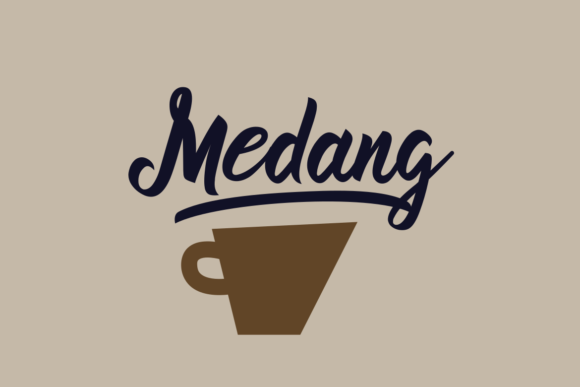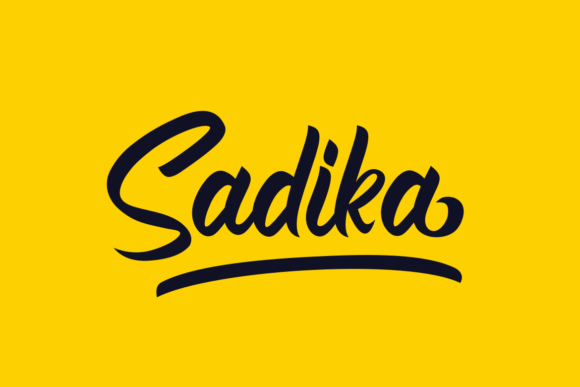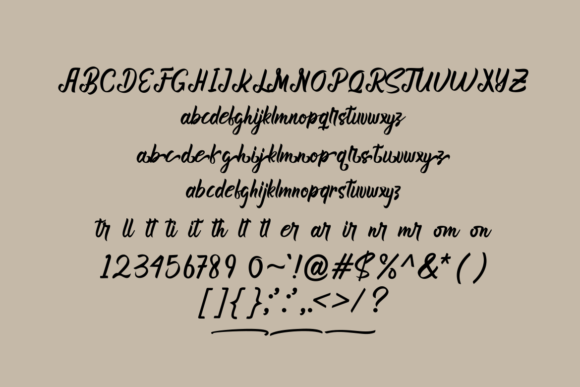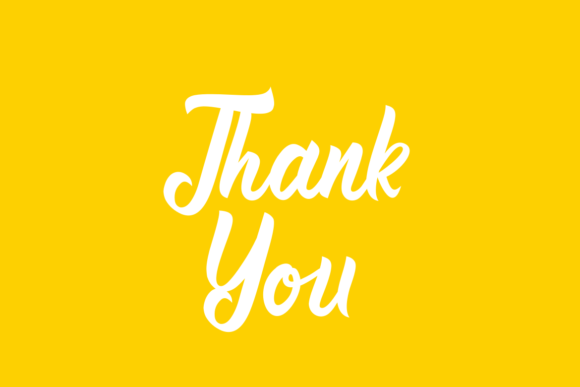
Bhanira Font: Elevate Your Designs with a Touch of Retro Elegance
Are you on the hunt for a font that exudes a sense of nostalgia and sophistication? Look no further than Bhanira Font, a beautiful, flowing, and retro handwritten font that’s perfect for a wide range of design projects. In this article, we’ll dive into the world of Bhanira Font, exploring its features, uses, and benefits for designers and crafters.
What is Bhanira Font?
Bhanira Font is a stunning, handwritten font that’s reminiscent of a bygone era. Its flowing lines and retro charm make it an ideal choice for designs that require a touch of elegance and sophistication. Whether you’re working on invitations, thank you cards, quotes, greeting cards, logos, business cards, or any other project, Bhanira Font is sure to make a lasting impression.
Key Features of Bhanira Font
- Beautiful and Flowing Design: Bhanira Font boasts a beautiful, flowing design that’s perfect for creating visually stunning text.
- Retro Handwritten Style: The font’s retro handwritten style adds a touch of nostalgia and charm to any design.
- Versatile: The font is suitable for a wide range of design projects, from invitations and greeting cards to logos and business cards.
Benefits of Using Bhanira Font
So, why should you choose Bhanira Font for your design projects? Here are just a few benefits of using this stunning font:
- Elegance and Sophistication: Bhanira Font adds a touch of elegance and sophistication to any design, making it perfect for high-end projects.
- Versatility: Bhanira Font is suitable for a wide range of design projects, making it a great addition to any designer’s toolkit.
- Unique and Eye-Catching: The font’s retro handwritten style makes it stand out from more traditional fonts, adding a unique and eye-catching touch to your designs.
Use Cases for Bhanira Font
Bhanira Font is a versatile font that can be used in a wide range of design projects. Here are just a few use cases to get you started:
- Invitations: Use Bhanira Font to create stunning invitations for weddings, parties, and other special events.
- Greeting Cards: Add a touch of elegance and sophistication to your greeting cards with Bhanira Font.
- Logos and Branding: Use Bhanira Font to create unique and eye-catching logos and branding materials.
- Business Cards: Stand out from the crowd with Bhanira Font on your business cards.
- Quotes and Posters: Use Bhanira Font to create stunning quotes and posters that are sure to grab attention.
Tips for Using Bhanira Font
Here are a few tips for getting the most out of Bhanira Font:
- Experiment with Different Sizes and Colors: Bhanira Font looks great in a variety of sizes and colors, so don’t be afraid to experiment and find the perfect combination for your design.
- Pair with Other Fonts: Bhanira Font pairs well with a range of other fonts, so try combining it with different fonts to create a unique and eye-catching design.
- Use Swashes and Glyphs: Take advantage of Bhanira Font’s PUA encoding to access a range of swashes and glyphs that can add a touch of elegance and sophistication to your design.
Bhanira Font is a stunning, retro handwritten font that’s perfect for designers and crafters looking to add a touch of elegance and sophistication to their designs. With its flowing lines, PUA encoding, and versatility, Bhanira Font is a great addition to any designer’s toolkit. Whether you’re working on invitations, greeting cards, logos, or any other project, Bhanira Font is sure to make a lasting impression.